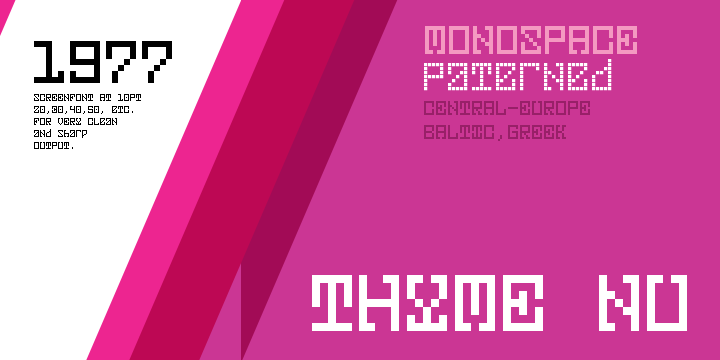
Thyme Nu
from UrbanPixel
Designed by: Michel Troy
Designed when: 2009
Design owned by: UrbanPixel
Thyme Nu
The best of both worlds: good for small screen resolutions and nice output at larger sizes.